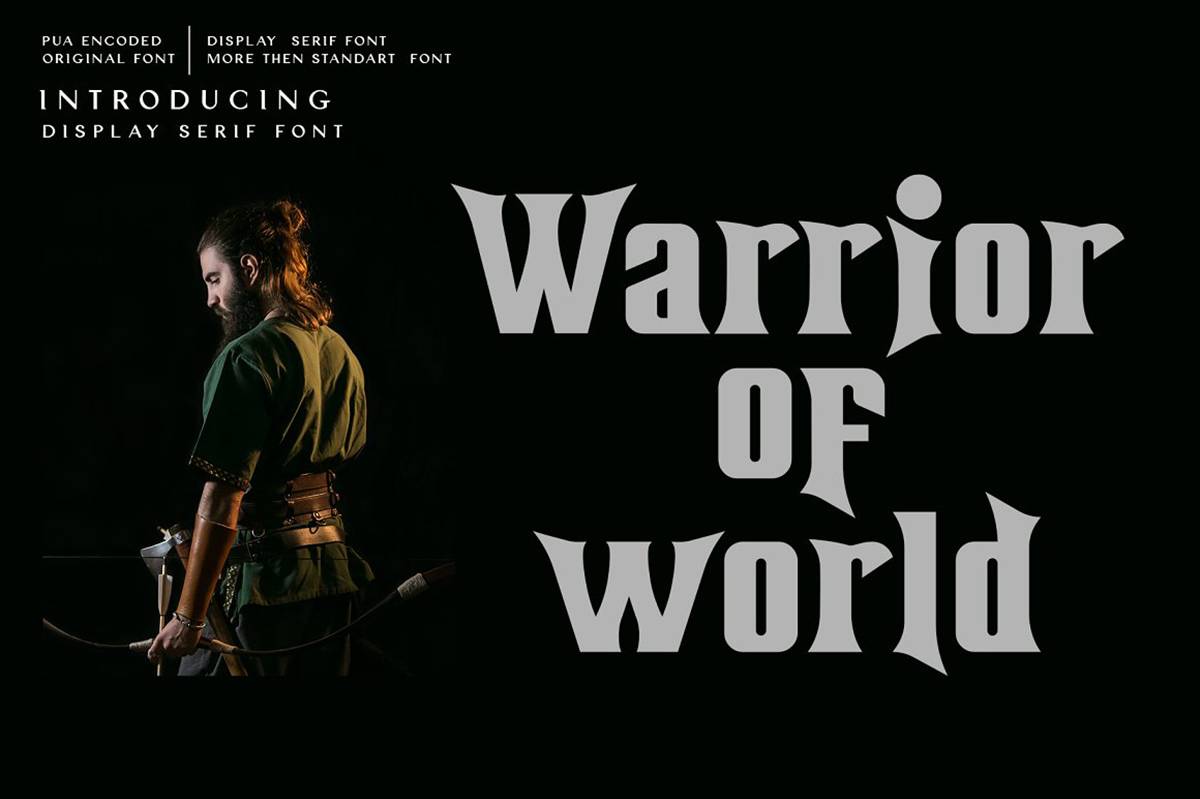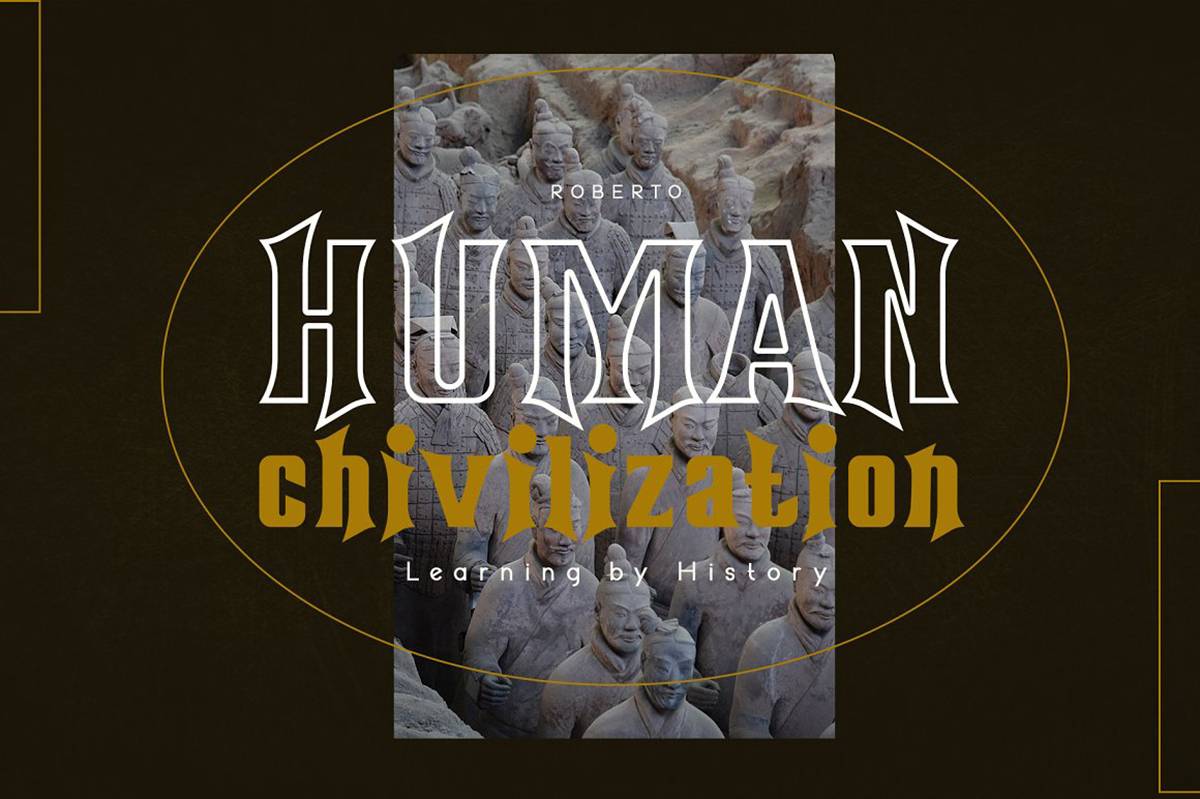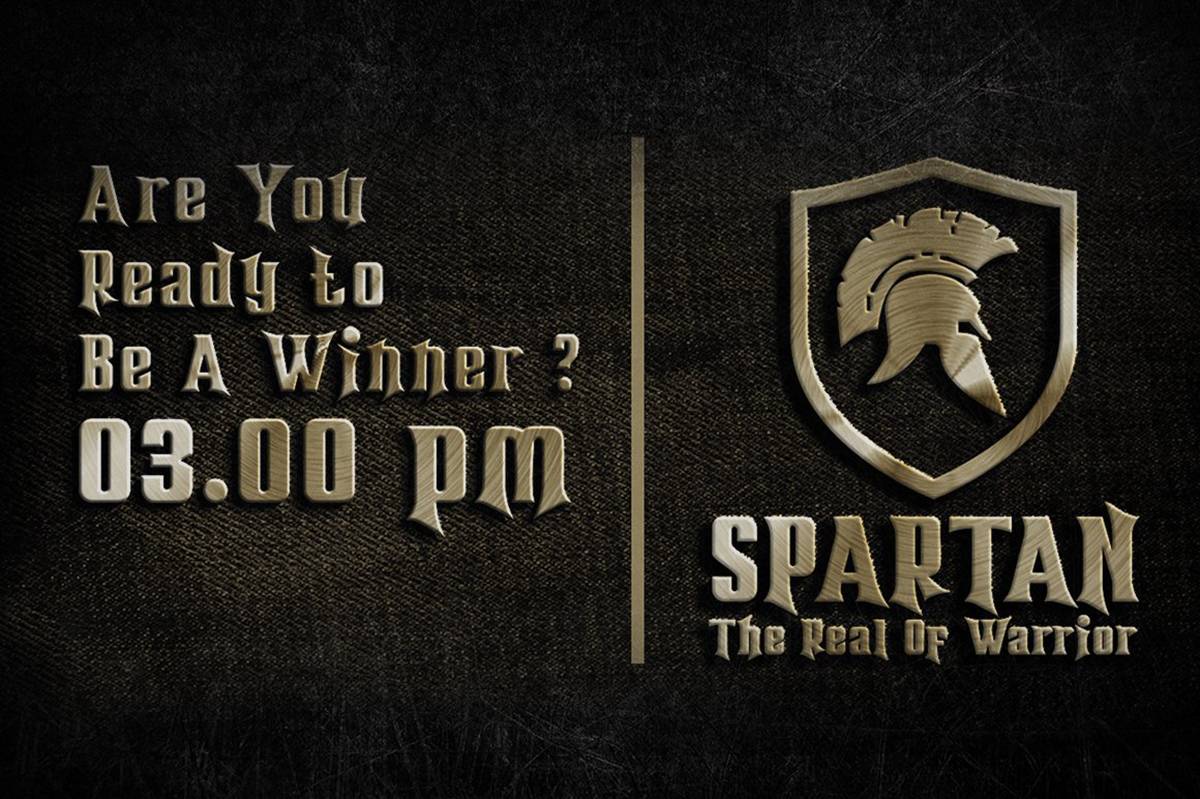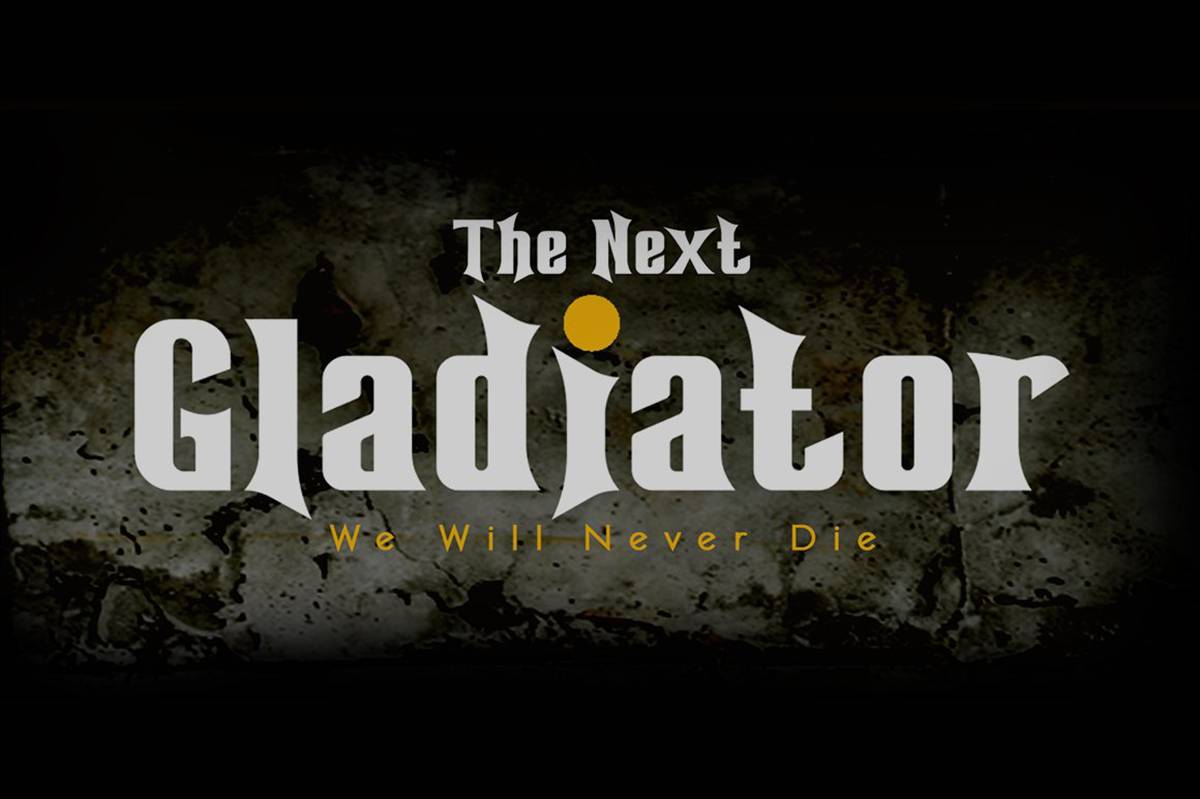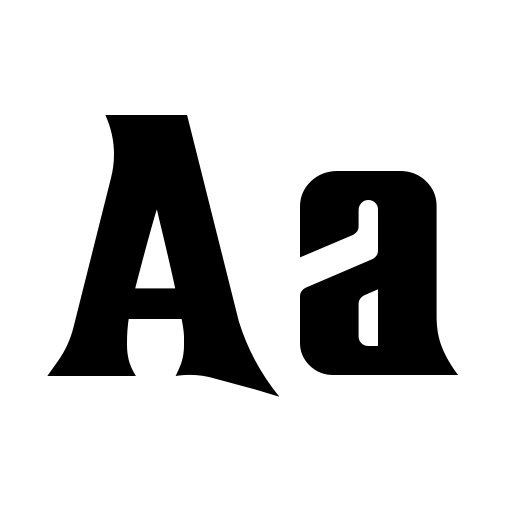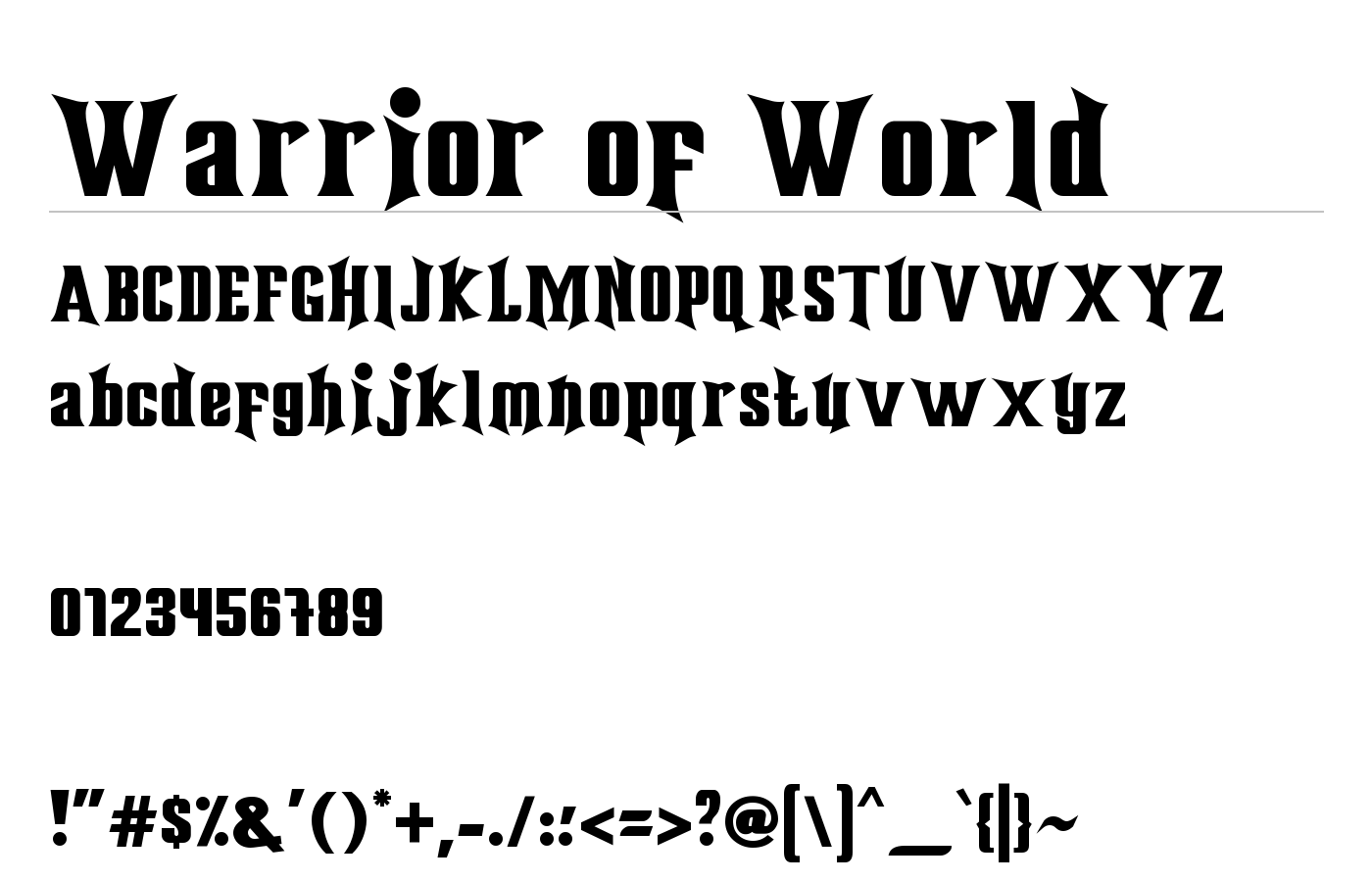
Warrior of World is a bold, condensed serif font with sharp, angular details that give it a strong and dramatic presence. Its high contrast between thick and thin strokes combined with unique, pointed serifs imparts an edgy, medieval-inspired character well suited for impactful headlines, logos, and designs seeking a powerful, adventurous vibe. This font excels in branding and poster use where a striking, commanding style is desired.
Warrior of World Font
About Warrior of World Font